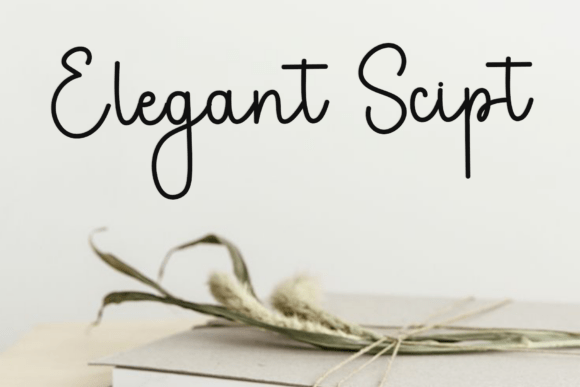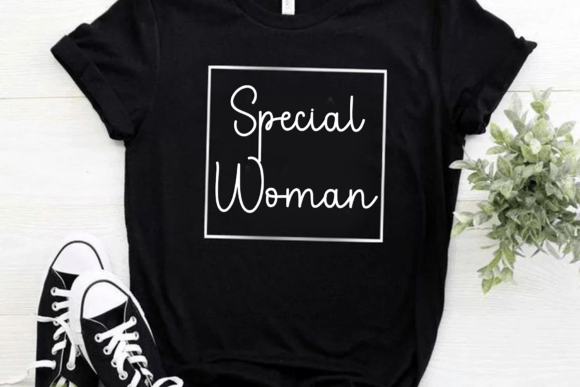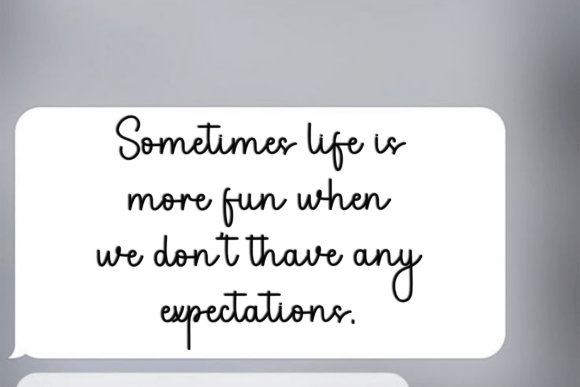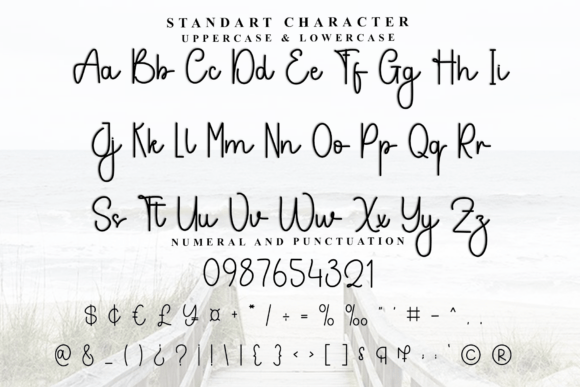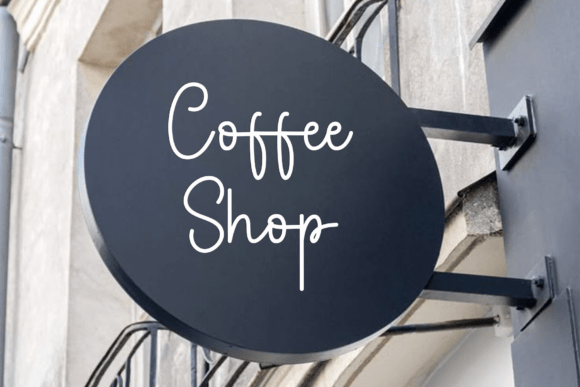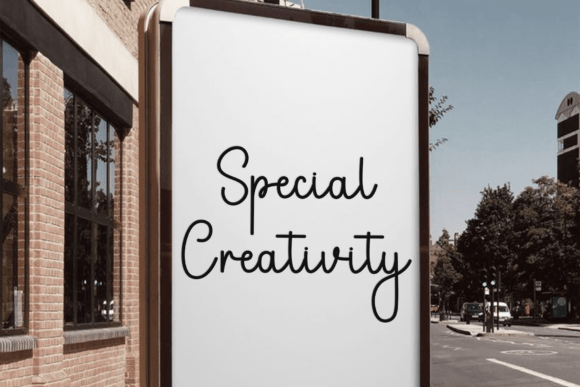
Discover the Perfect Font for Your Special Moments
Have you ever been captivated by a beautiful wedding invitation or a loving couple’s custom wedding sign? It’s those small details that make a moment truly unforgettable. For designers, finding the right font to match the occasion can be a challenge. But what if you had a font that not only adds elegance to your designs but also tells a story?
Introducing the Brother Wedding Font, a beautiful and unique typeface designed to capture the essence of love and celebration. With its soft, distinctive strokes, this font is perfect for crafting wedding invitations, decorations, and other custom designs. Whether you’re a professional designer or a crafty enthusiast, the Brother Wedding Font is a valuable addition to your toolkit. Its versatility and compatibility with various applications make it an ideal choice for a wide range of creative projects.
Brother Wedding Font Key Features
- Unique Characteristics: The Brother Wedding Font features a classic, elegant design with intricate details and ornate flourishes, making it perfect for formal events and high-end weddings.
Review of Brother Wedding Font
At first glance, the Brother Wedding Font seems like a lovely addition to any wedding stationery. ✨ The elegant script font adds a touch of sophistication to invitations, save-the-dates, and other printed materials. ✨ The subtle flourishes and connecting strokes create a cohesive and refined look.
One of the strengths of this font is its versatility. It can be used for both formal and semi-formal wedding invitations, making it a great option for couples who want a classic yet modern aesthetic. ✨ Additionally, the font is highly legible, even at smaller sizes, which is essential for invitations where space is limited.
- ⚠️ Limited character set: The font only includes uppercase and lowercase letters, numbers, and a few punctuation marks. This may be a limitation for couples who want to add more creative elements to their invitations.
- ⚠️ Not ideal for bold text: The font’s elegance is compromised when used for bold or italic text, which can look messy and unpolished.
Overall, the Brother Wedding Font is a solid choice for couples looking for a classic, elegant font for their wedding stationery. While it has some limitations, its versatility and legibility make it a great option for many couples.
Tips for Getting the Most Out of Brother Wedding Font
Use Brother Wedding Font for wedding invitations, save-the-dates, and other wedding-related materials for a cohesive look. Experiment with different font sizes and styles to create visual interest. Combine with other elegant fonts for a sophisticated look.
Brother Wedding Font is commonly used for:
- Wedding invitations and save-the-dates
- Wedding programs and menus
- Wedding website and social media graphics